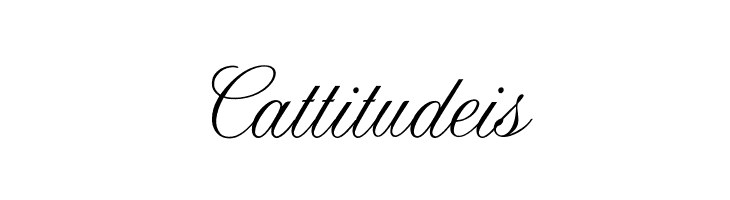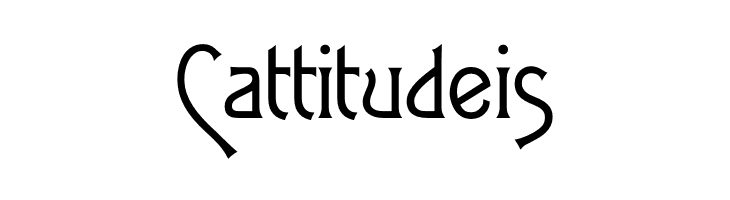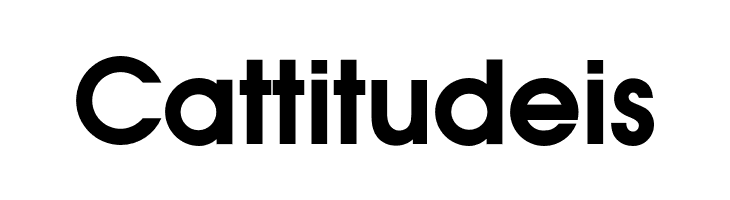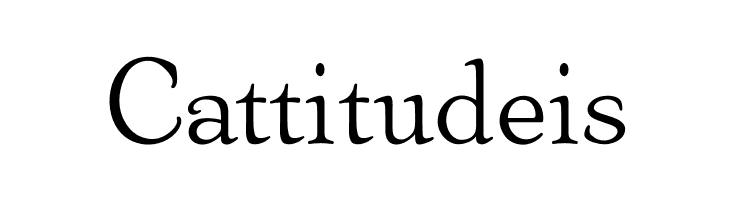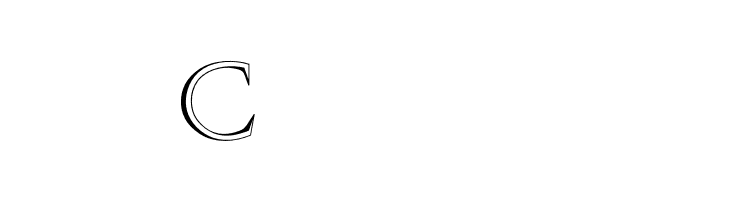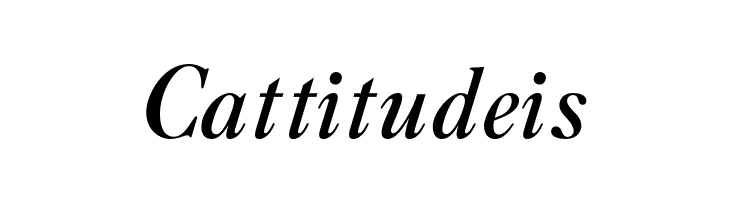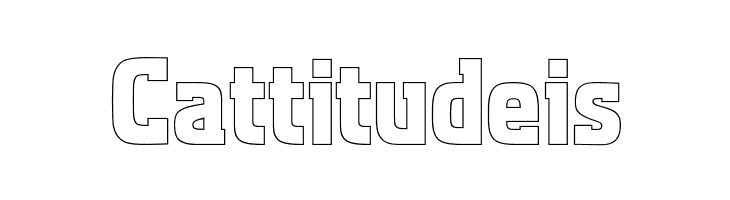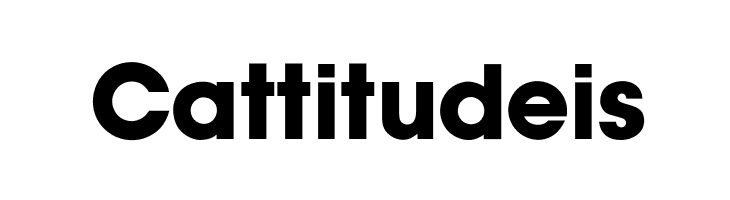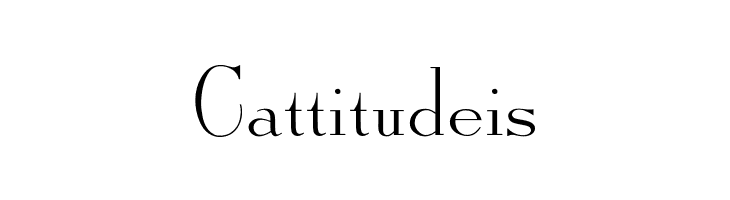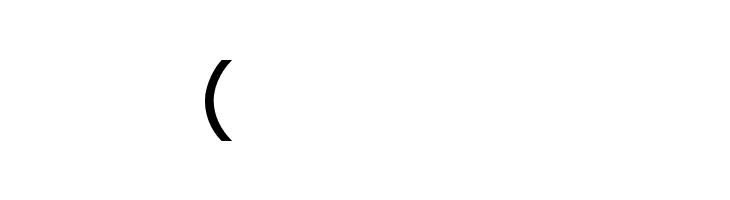
A sophisticated script font with elegant, flowing cursive characters.
An elegant serif font with high contrast and decorative flourishes.
An elegant serif font with refined, classic styling and slight stroke contrast.
A serif font with modern inline detailing, offering a blend of classic and contemporary styles.
A modern serif font with elegant, balanced letterforms and medium weight.
A classic serif typeface with elegant italics and refined serifs.
A bold, modern font with strong lines and a professional appearance.
A bold, italicized font with a dynamic and uniform appearance.
A clean, modern typeface with geometric structure and consistent stroke widths.
A sleek, modern italic font with clean lines and consistent stroke width.
A modern, clean font with balanced proportions and strong readability.
A bold, high-contrast serif typeface with tall, narrow letters.
A classic serif typeface with elegant strokes and refined details.
A classic serif font with elegant curves and refined strokes.
A bold, classic serif font with strong strokes and a modern touch.
A bold, geometric font with a modern and robust design.
A bold, geometric outline font with modern appeal and high legibility.
An elegant script font with high contrast and decorative uppercase letters.
A gothic-inspired font with sharp, angular lines and artistic flair.
A bold, expressive serif font with rounded serifs and a classic yet elegant style.
A classic serif font with elegant, refined strokes and a light, airy feel.
A bold, geometric font with a modern and artistic style.
A bold, serif font with thick strokes and a strong presence.
A refined serif font with elegant proportions and classic style.
A sophisticated serif font with bold strokes and elegant curves.
An elegant italic font with flowing, cursive strokes and a moderate slant.
A bold, condensed font with uniform strokes and a modern, impactful style.
A bold, condensed font with tall, narrow letterforms and consistent stroke thickness.
A bold, condensed font with tall, narrow letters and minimal spacing.
A bold, modern font with strong, uniform strokes for impactful design.
A bold, modern sans-serif font with geometric precision and strong visual impact.
A bold, modern sans-serif font with geometric influences and excellent readability.
A classic serif font with elegant strokes and a timeless design.
A bold, handwritten font with a playful and dynamic style.